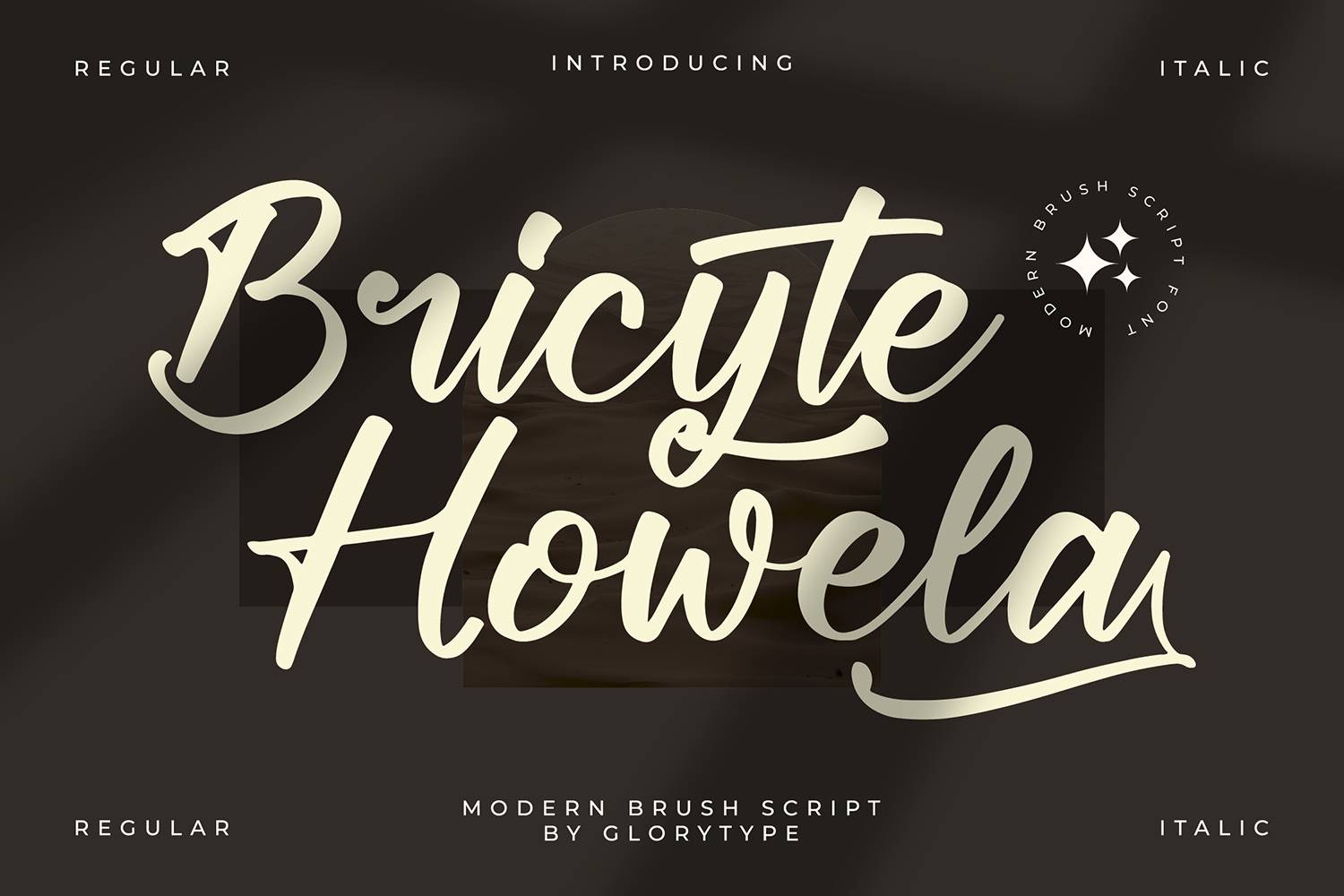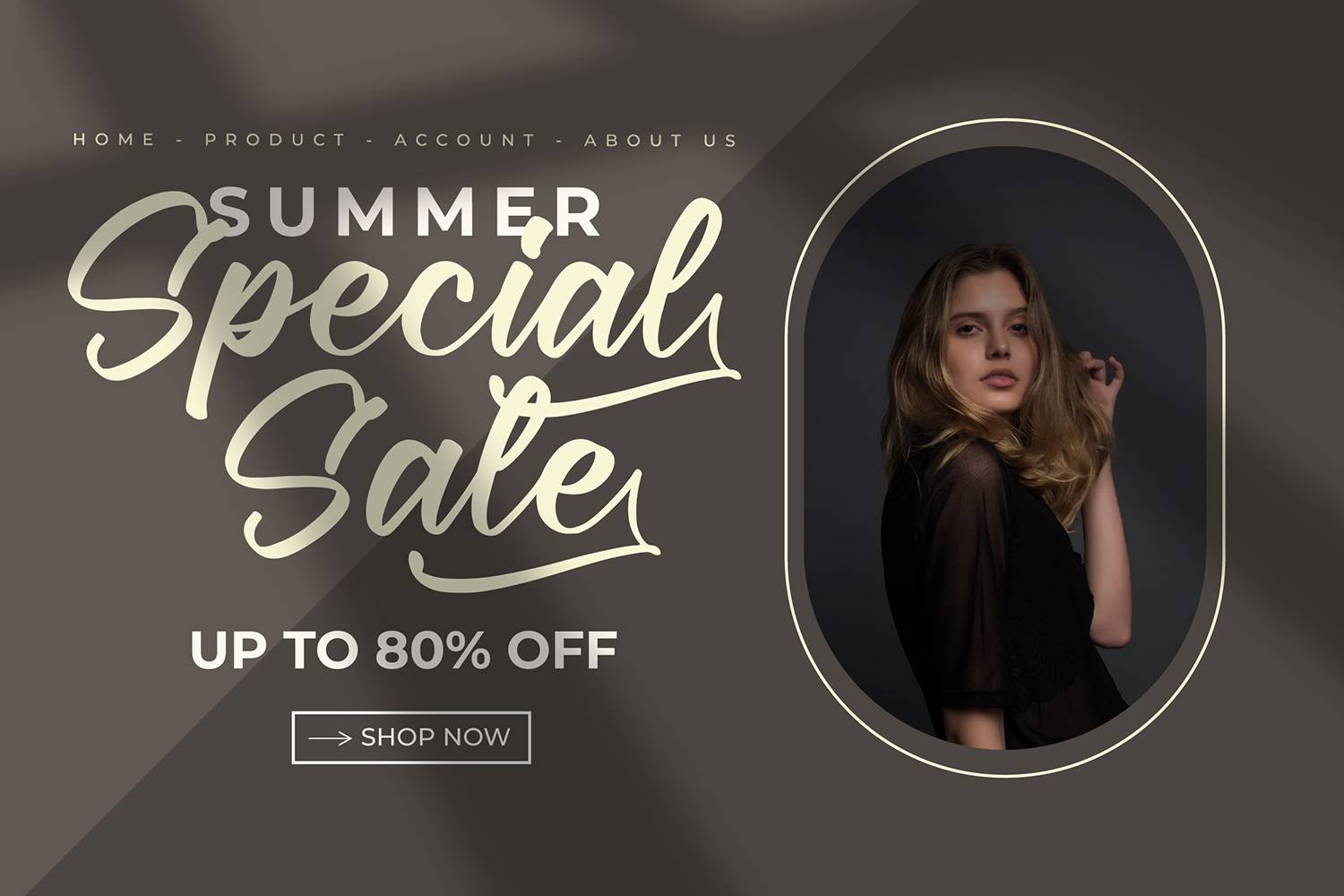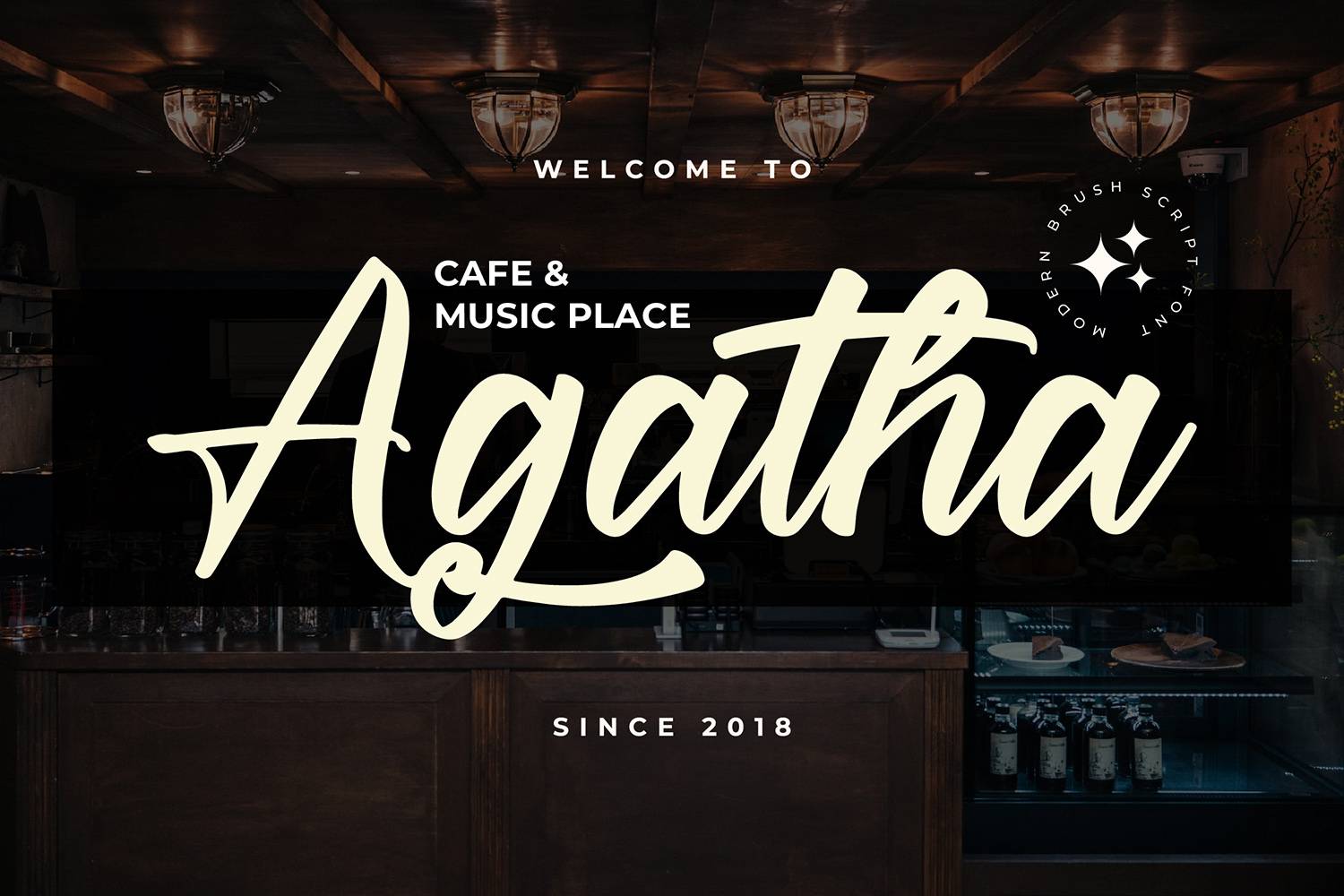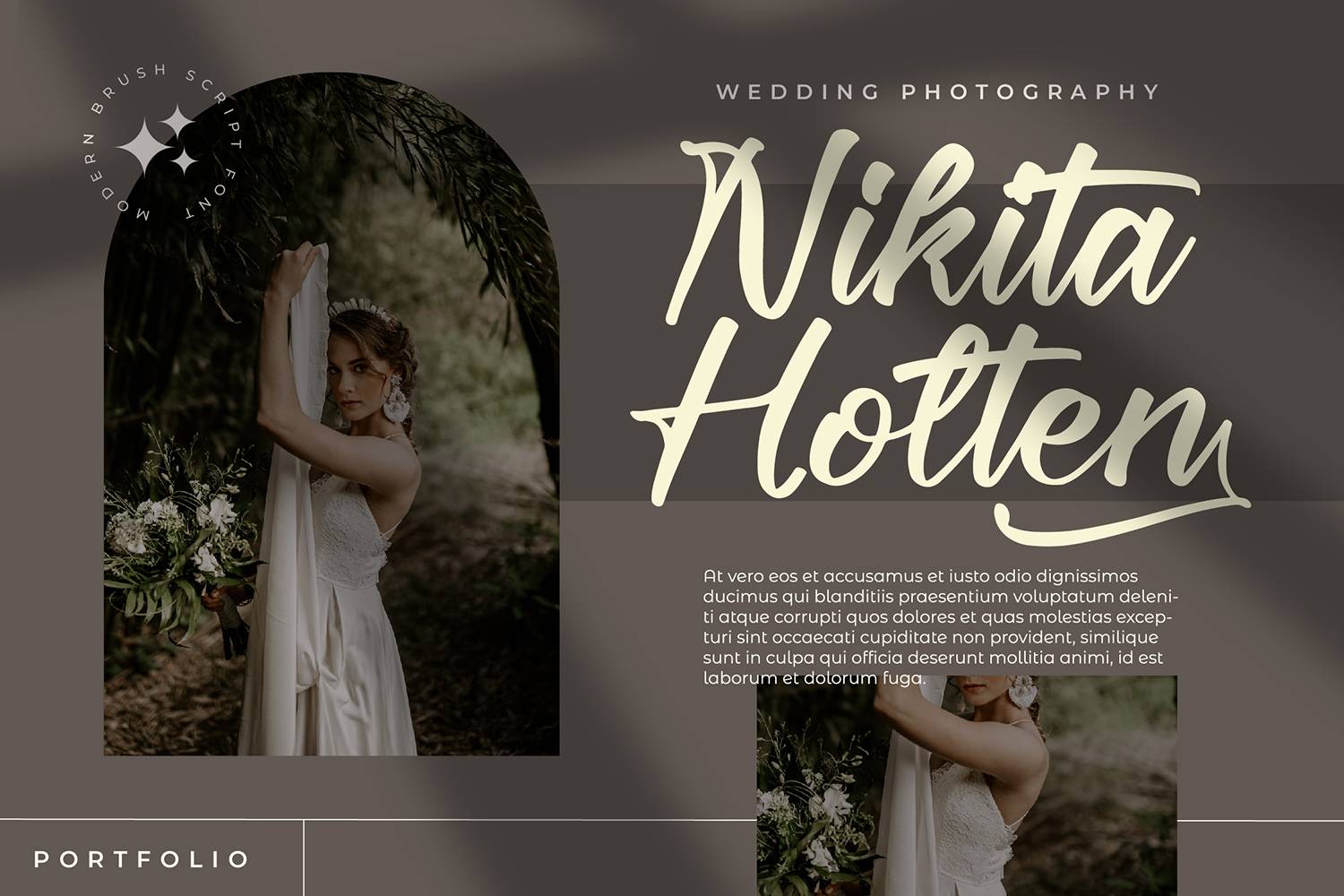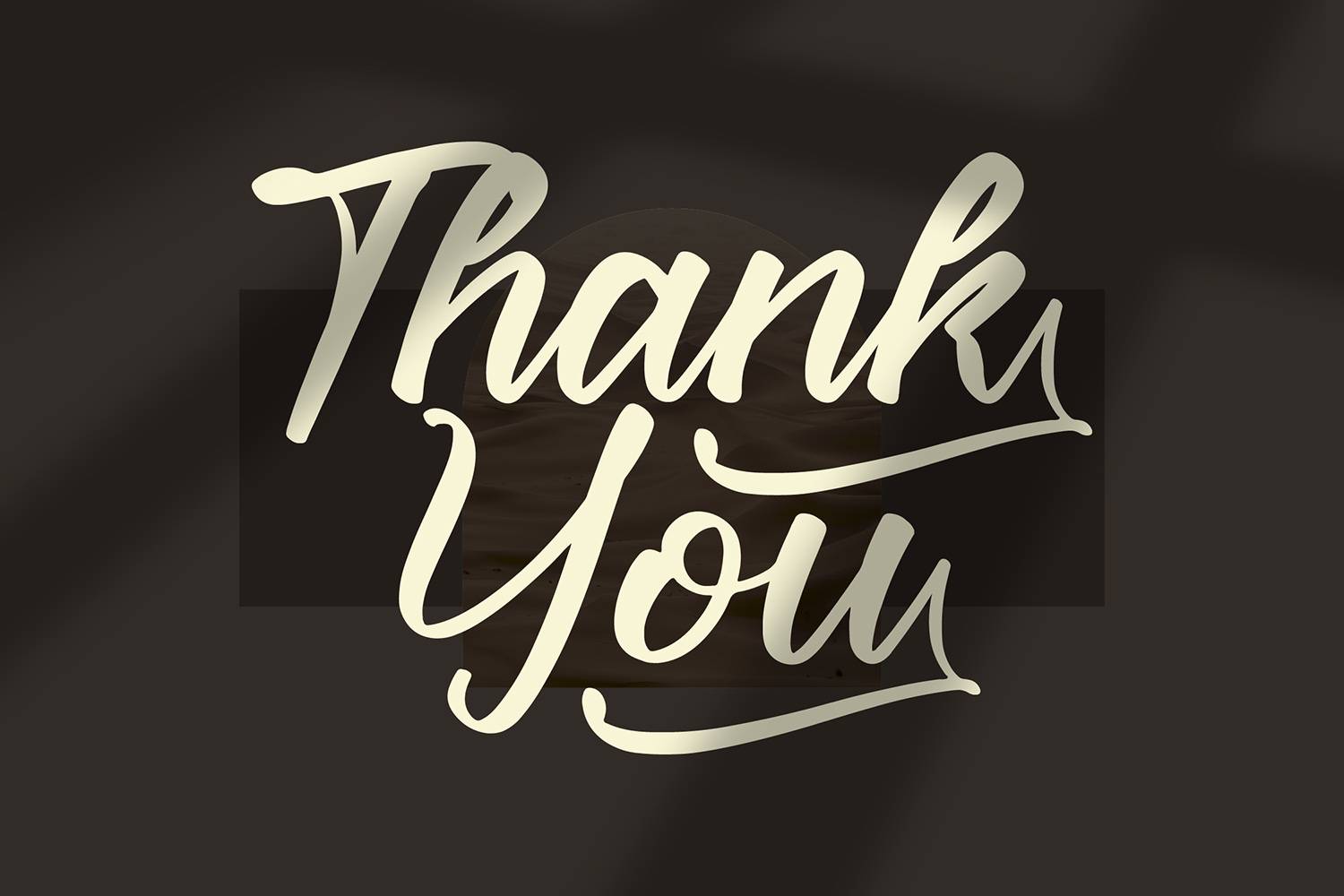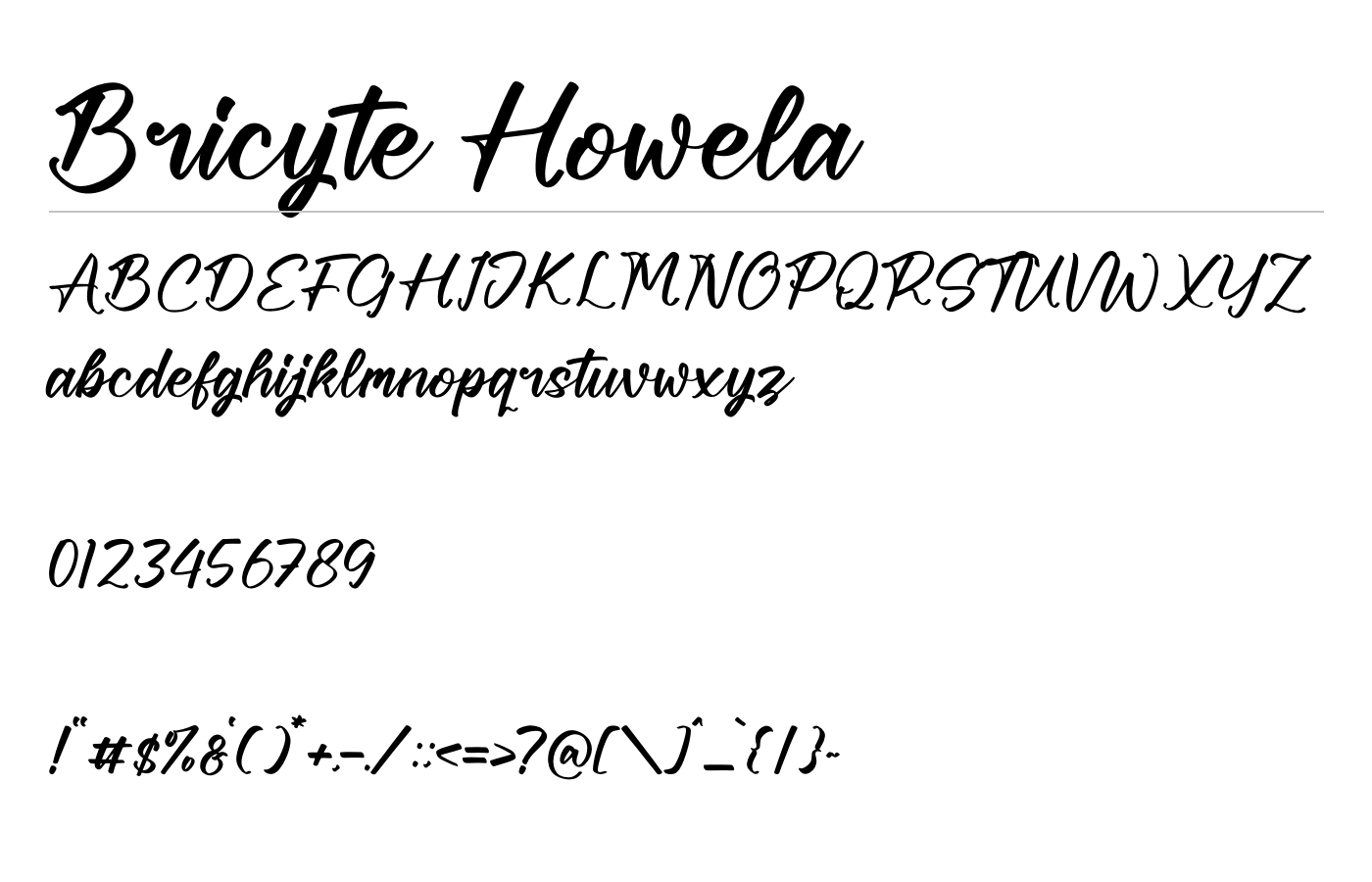
Bricyte Howela is a stylish script font that blends elegant cursive forms with a lively, handwritten feel. Its moderate stroke contrast and smooth, flowing lines convey warmth and personality, making it perfect for creative branding, invitations, and expressive headlines. This font adds a chic, approachable vibe that works beautifully in both digital and print contexts where a personal, artistic touch is desired.
Bricyte Howela Font
About Bricyte Howela Font